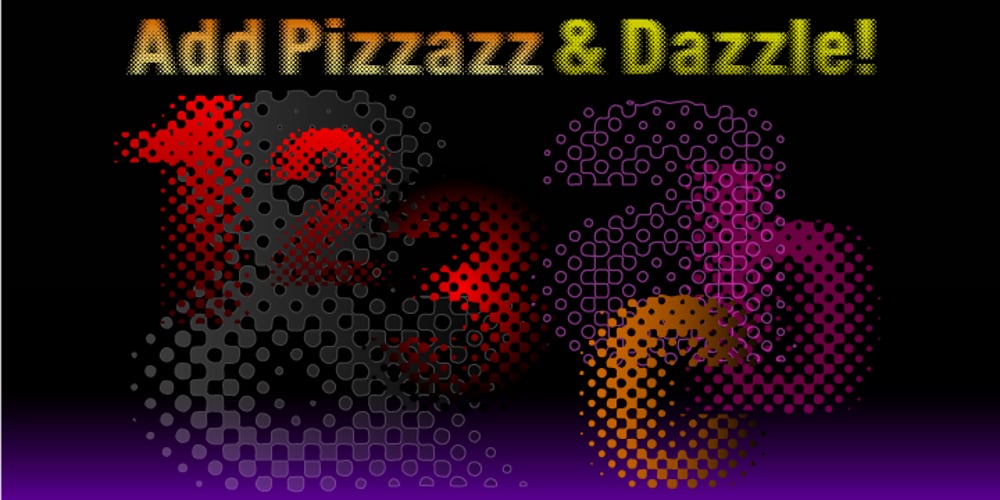
Subliminal BF
Subliminal BF font
Subliminal BF Font Family was designed by John Bomparte and published by Bomparte’s Fonts. Subliminal BF contains 1 styles and family package options. Subliminal BF presents a cool, distinctive look that’s a superb selection for a wide variety of uses from music CD covers to packaging. Like Glow Gothic BF, it represents experimentation in the realm of halftone effects. At smaller than headline sizes it “colors up” to exhibit a unique, kinetic sensation.